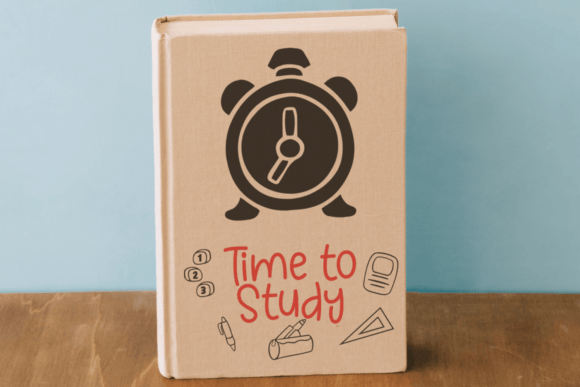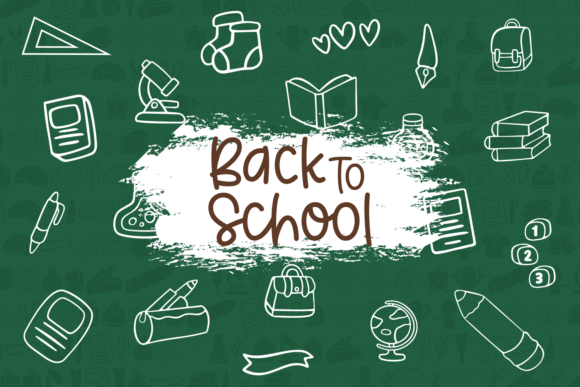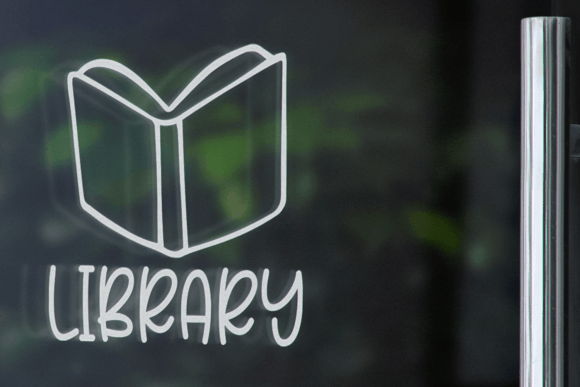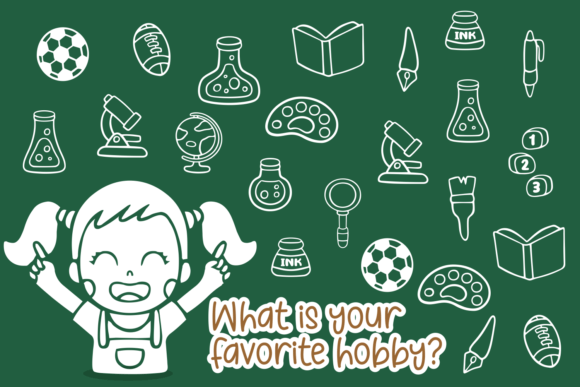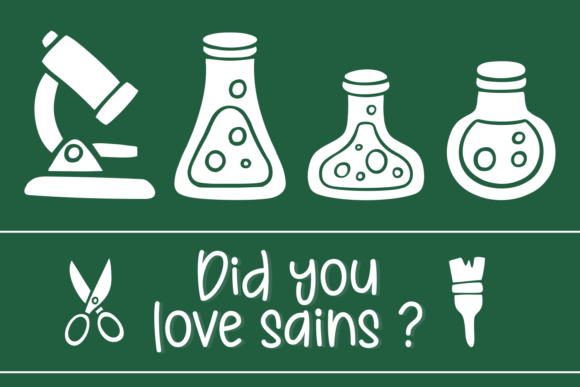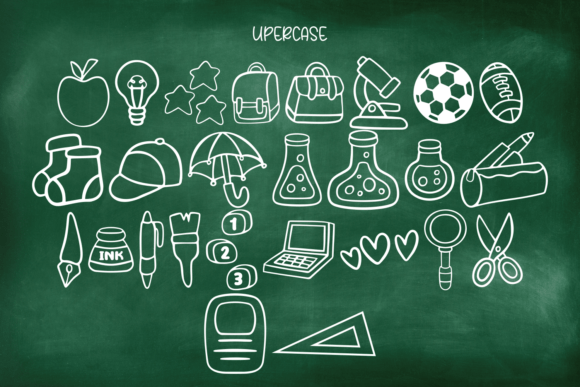
Doodles for School Font: Unleash Your Creativity with this Adorable Dingbats Font
Are you a designer, crafter, or educator looking for a fun and creative way to add a personal touch to your school-themed projects? Look no further than the Doodles for School Font, a cool and useful dingbats font that’s perfect for making adorable and engaging designs. In this article, we’ll explore the features and benefits of this fantastic font, and show you how to make the most of it in your projects.
What is Doodles for School Font?
Doodles for School Font is a unique and creative dingbats font that’s specifically designed for school-themed projects. This font features a wide range of adorable and fun designs, including illustrations of school supplies, icons, and other elements that are perfect for creating engaging and interactive designs.
Key Features of Doodles for School Font
- Unique and Creative Designs: Doodles for School Font features a wide range of unique and creative designs that are perfect for adding a personal touch to your school-themed projects.
- School-Themed Illustrations: The font includes a variety of school-themed illustrations, including school supplies, icons, and other elements that are perfect for creating engaging and interactive designs.
Benefits of Using Doodles for School Font
There are many benefits to using Doodles for School Font in your projects. Here are just a few:
- Add a Personal Touch: With Doodles for School Font, you can add a personal touch to your school-themed projects and make them stand out from the crowd.
- Create Engaging Designs: The font’s fun and creative designs are perfect for creating engaging and interactive designs that will capture the attention of your audience.
- Save Time: With Doodles for School Font, you can save time and effort by using pre-made designs and illustrations instead of creating them from scratch.
- Perfect for Designers and Crafters: The font is perfect for designers and crafters who want to add a creative and fun touch to their projects.
Ideas for Using Doodles for School Font
Here are just a few ideas for using Doodles for School Font in your projects:
- School Planners and Organizers: Use the font to create adorable school planners and organizers that are perfect for students and teachers.
- Educational Posters: Create engaging educational posters with the font’s fun and creative designs.
- DIY School Crafts: Use the font to create DIY school crafts, such as stickers, labels, and other decorations.
- Custom School Merchandise: Create custom school merchandise, such as t-shirts, mugs, and water bottles, with the font’s adorable designs.
Tips and Tricks for Using Doodles for School Font
Here are a few tips and tricks for using Doodles for School Font in your projects:
- Experiment with Different Colors: Experiment with different colors and combinations to create unique and eye-catching designs.
- Mix and Match Designs: Mix and match different designs and illustrations to create complex and interesting compositions.
- Use the Font in Combination with Other Fonts: Use Doodles for School Font in combination with other fonts to create visually interesting and dynamic designs.
Doodles for School Font is a cool, creative, and useful dingbats font that’s perfect for making adorable school-themed projects. With its unique and creative designs, ease of use, and compatibility with most design software, this font is a must-have for designers, crafters, and educators. Whether you’re creating school planners and organizers, educational posters, DIY school crafts, or custom school merchandise, Doodles for School Font is the perfect choice. So why wait? Download Doodles for School Font today and start unleashing your creativity!